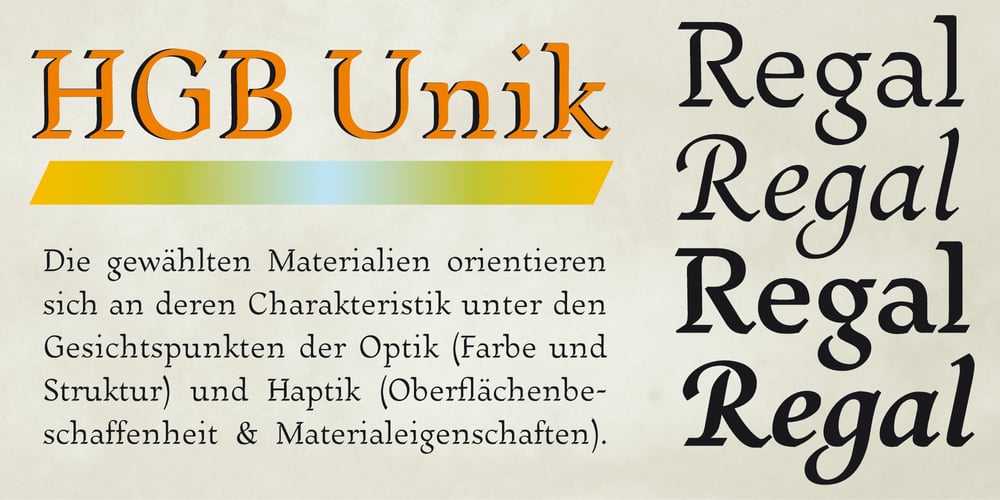
HGB Unik Font Family was designed by Hellmut G. Bomm and published by HGB fonts. HGB Unik contains 4 styles and family package options. For many years I had repeatedly written names on certificates or designed texts for certificates of honor with a pen. I later digitized a font written with a broad pen from 1988 to make it easier to use. After the technical possibilities for this had developed, I made a PostScript font out of this document font. The “HGB-Unik” is a humanistic antiqua that arose from this written type. In 2009 Unik was chosen as the text font for a book. However, the book designers wanted to have an italic and a bold style as well. The cursive was developed from written texts that I also wrote for various occasions in the 1980s. The resulting font family was thoroughly revised several times until a usable text font with four weights was created. Although the Unik looks very idiosyncratic in display size, it shows a surprisingly balanced, pleasant typeface in read size.